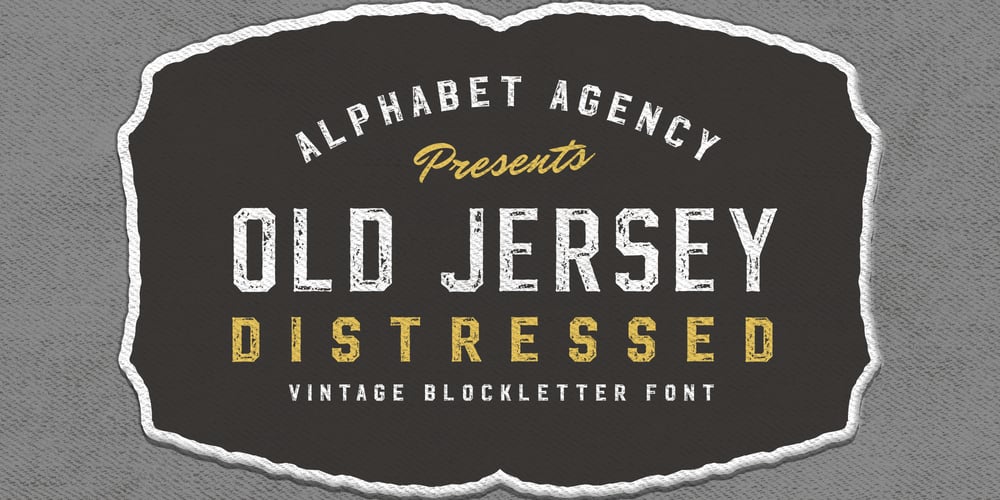
Old Jersey Distressed
Old Jersey Distressed font
Old Jersey Distressed Font Family was designed by Swinn Jonathan and published by Alphabet Agency. Old Jersey Distressed contains 1 styles and family package options. Old Jersey Distressed is a cool, vintage styled and rough textured display font. This adaptable font will look great on a variety of design ideas. It will add a distinct touch to each of your projects.